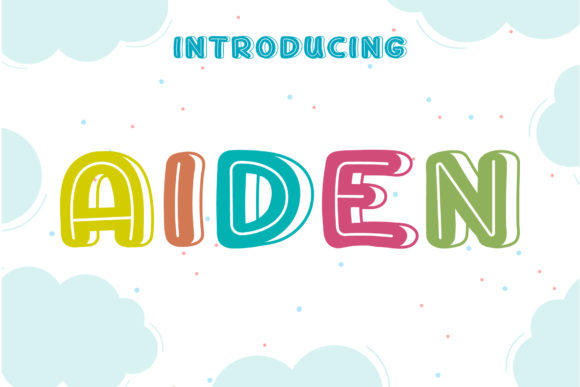
Embark on a whimsical journey with Aiden Font, a playful and captivating display font crafted in a captivating 3D style. Designed to ignite your imagination and bring life to your creative visions, Aiden Font is the perfect companion for any project seeking a touch of enchantment.
With its charming curves and playful strokes, Aiden Font dances across the page, captivating the eyes and hearts of all who behold it. Ideal for children-themed designs, this font exudes an aura of joy and wonder, making it the perfect choice for projects aimed at capturing the imaginations of young and old alike.
Picture the vibrant pages of a storybook, where Aiden Font brings the characters and landscapes to life with its whimsical charm. Or envision the eye-catching posters and flyers adorned with Aiden Font, inviting you into a world of adventure and dreams.
The possibilities are endless when you unleash the magic of Aiden Font. Its versatility knows no bounds, extending beyond children-themed designs to encompass a wide array of creative endeavors. Whether you're crafting invitations for a special occasion, designing greeting cards to express your heartfelt sentiments, or creating social media graphics to captivate your audience, Aiden Font will add a touch of enchantment to every project.
So, embrace the magic of Aiden Font and let your creativity soar. Experience the joy of transforming ordinary words into captivating works of art, leaving a lasting impression on all who encounter them. Download Aiden Font today and unlock the door to a world of endless possibilities, where imagination reigns supreme.